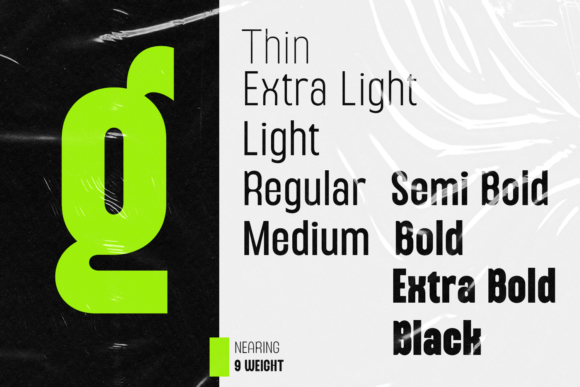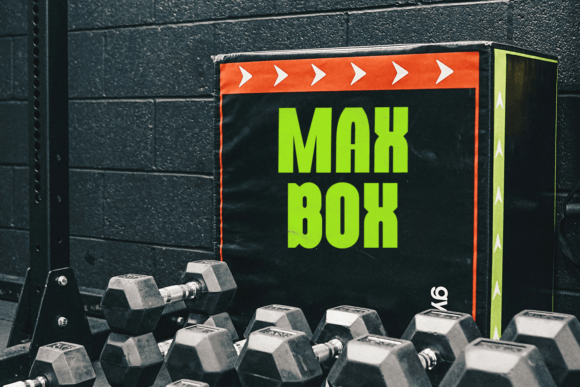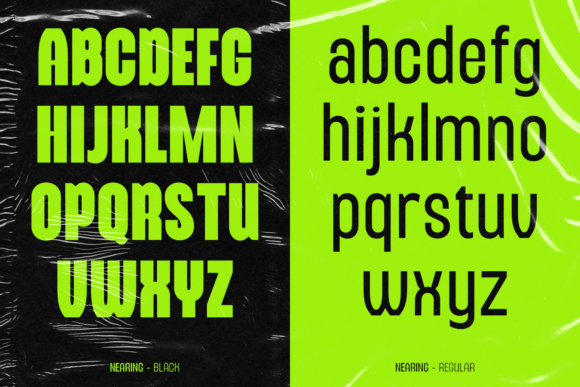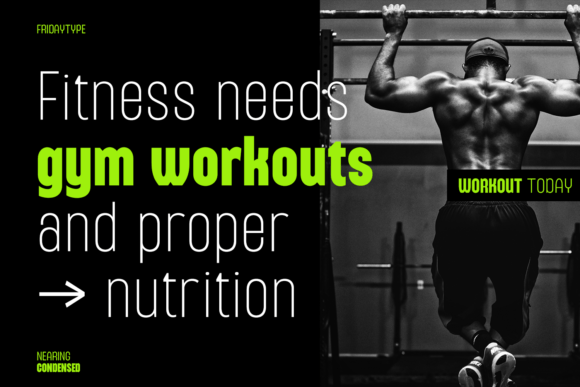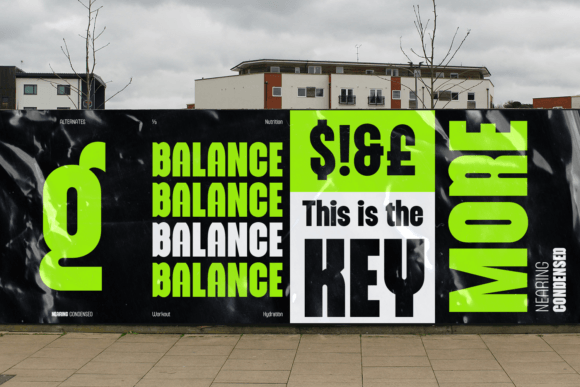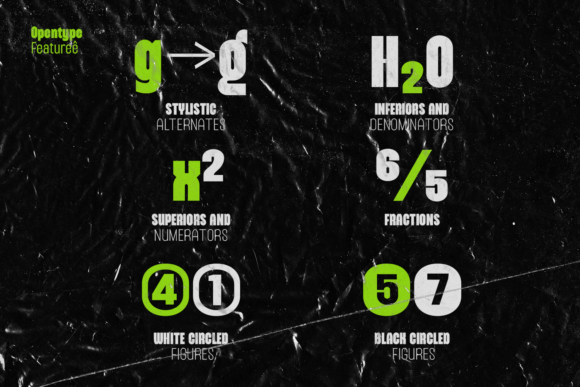
Introduction to Nearing Font
Nearing Condensed Sans brings a bold and dynamic aesthetic to your portable workout equipment packaging.
Its sleek design not only catches the eye but also communicates high performance and quality Nearing comes with 9 weights.
Key Features of Nearing Font
Why Choose Nearing Font?